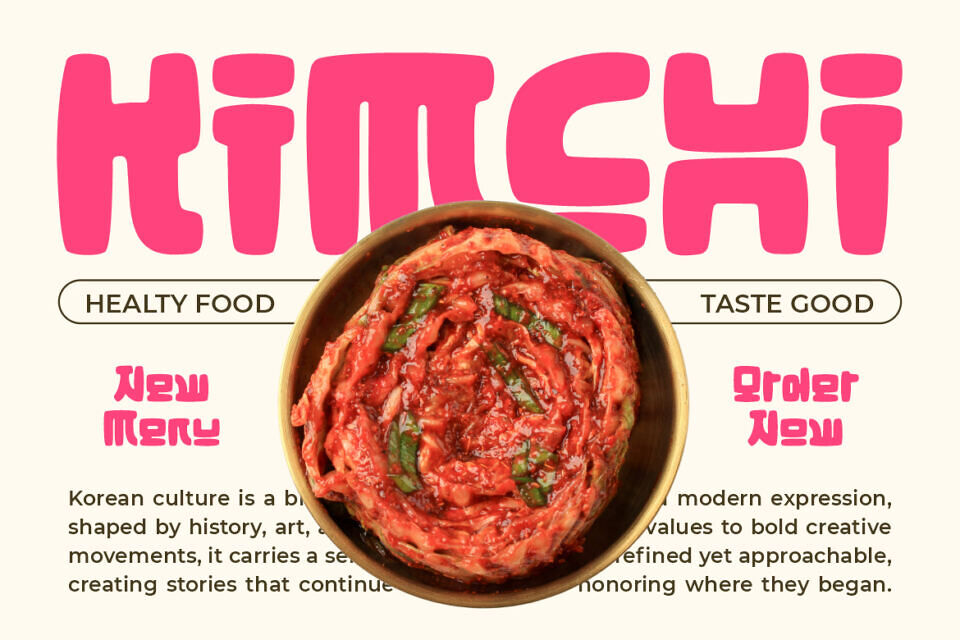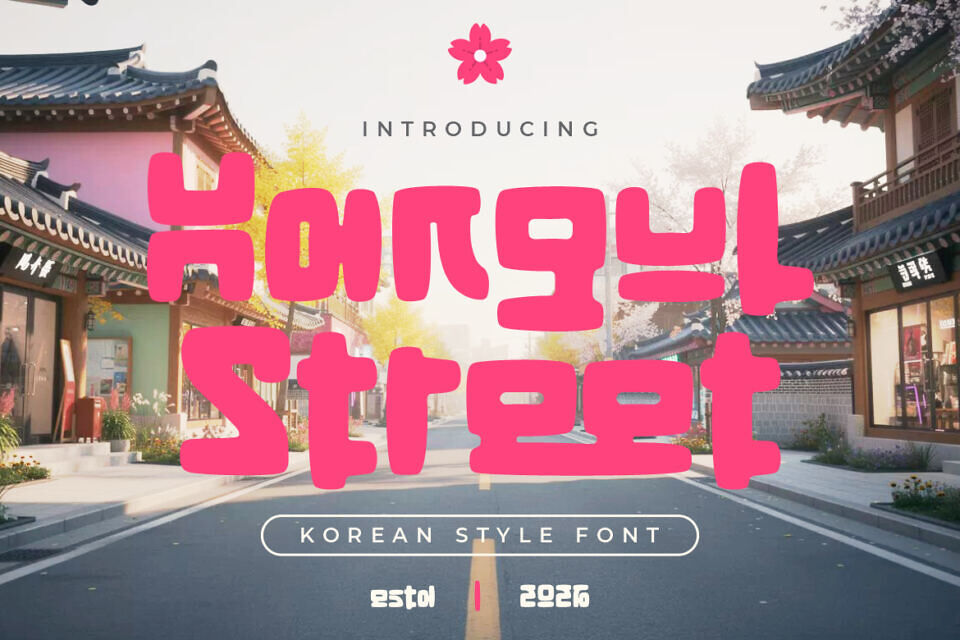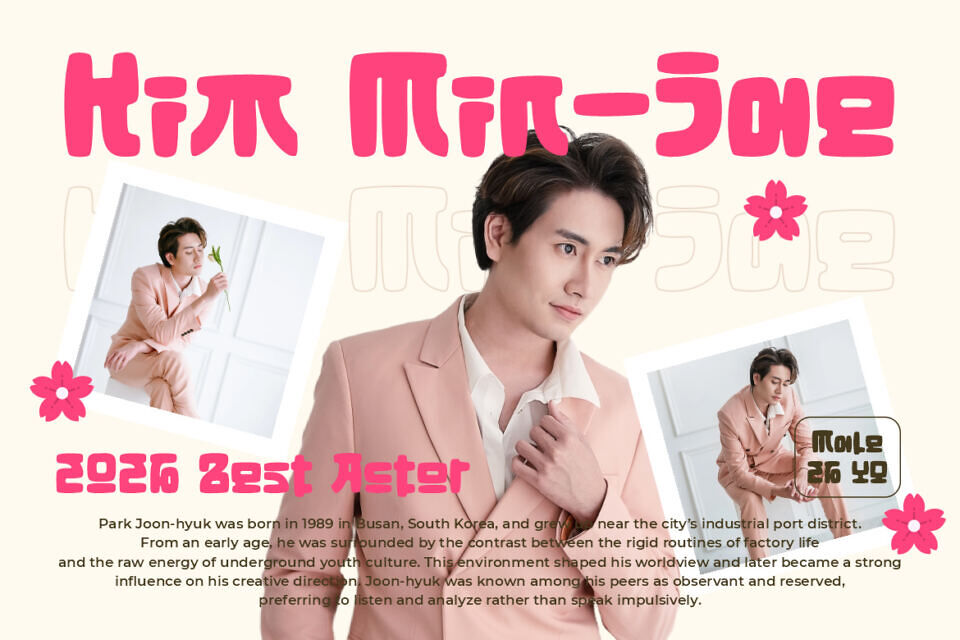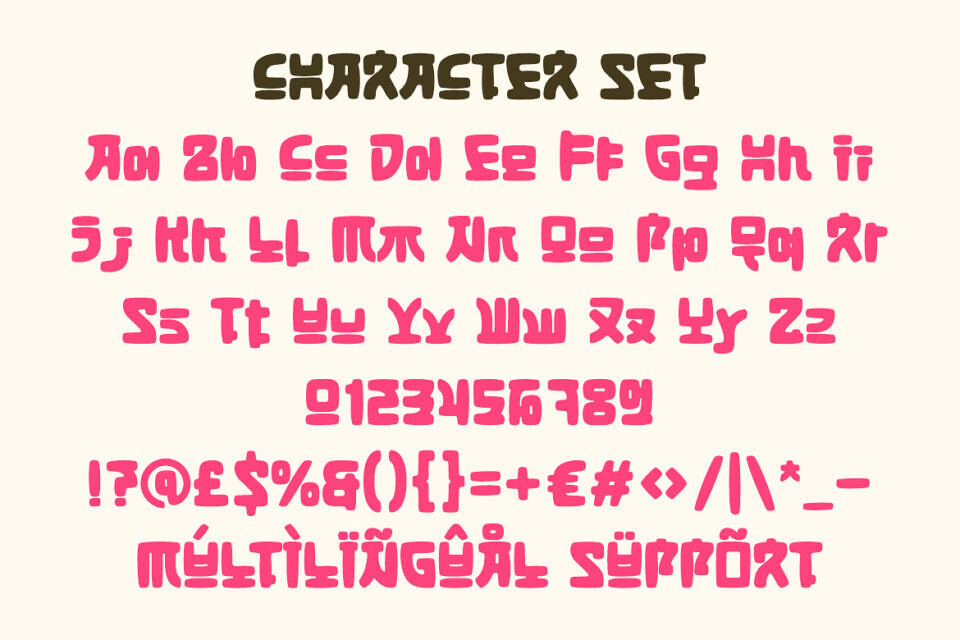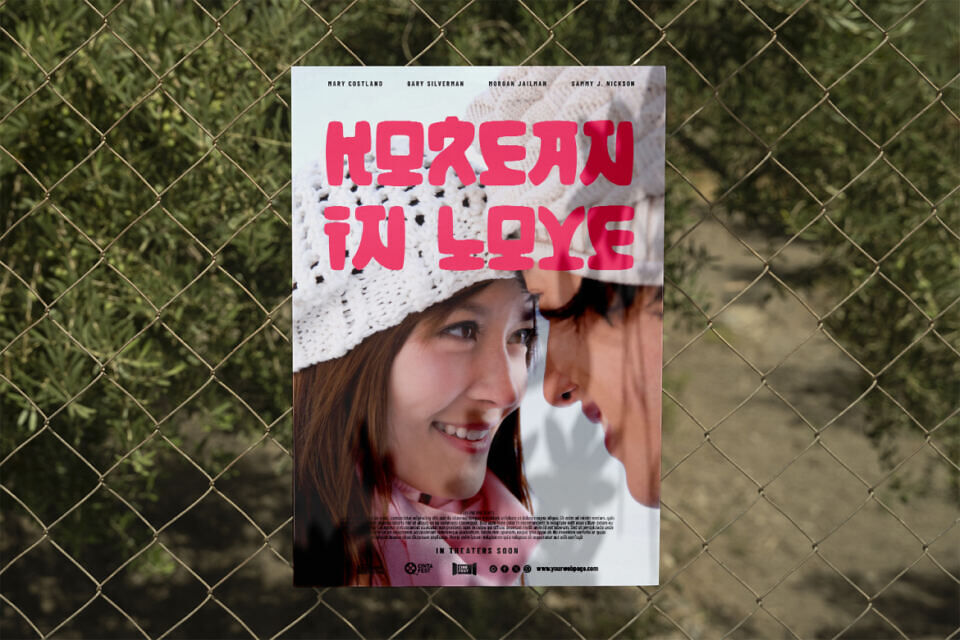
Hangul Street Font
Hangul Street “Korean Style Font” is a display typeface built with thick strokes and soft, rounded geometry. Each letter feels compact and wide, creating a strong visual block on every word. Stroke weight stays consistently bold, which helps the font stand out instantly in display use.
Hangul Street carries a playful, modern, and pop-driven personality strongly associated with Korean street branding. The style feels bold, fun, and eye-catching, making it ideal for K-pop related visuals, food packaging, and youth-focused brands. Works especially well for logos, branding, headlines, posters, stickers, and advertising materials. It also suits product packaging, social media graphics, magazine titles, and film or event titles.